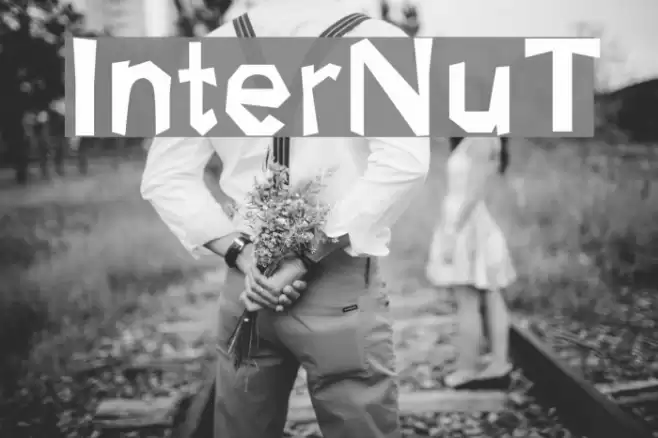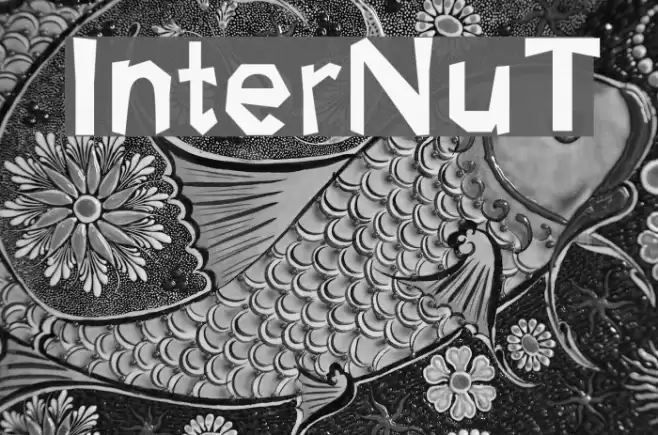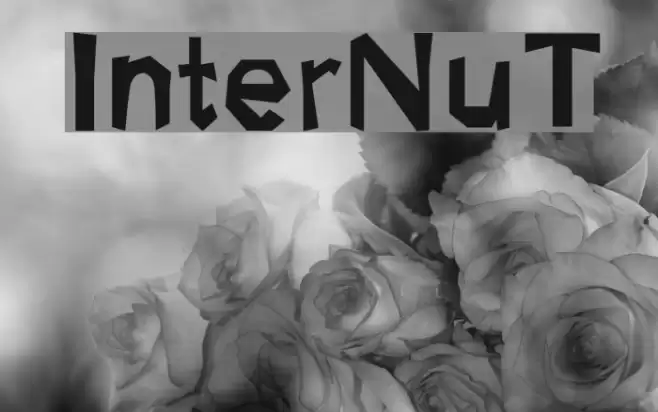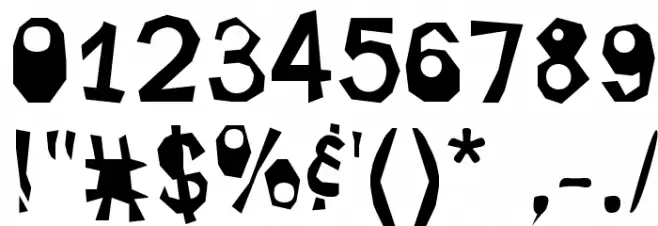
InterNuT Font
InterNuT Description
This font features a bold and playful design with irregular, jagged edges that give it a hand-cut, artistic feel. The uppercase and lowercase letters maintain a consistent style, characterized by their uneven strokes and quirky shapes. The numbers follow the same playful aesthetic, making them stand out with their unique forms. Special characters are included, each designed with the same creative flair. This font is perfect for projects that require a fun and informal touch, such as children's books, posters, or creative branding. Its distinctive style ensures that it captures attention and adds a lively element to any design.
A bold, playful font with irregular, jagged edges and a hand-cut feel from Uncategorized fonts.
- Proposed Projects: Ideal for children's books, creative branding, posters, and artistic projects.
- Overall Style: Playful, Artistic